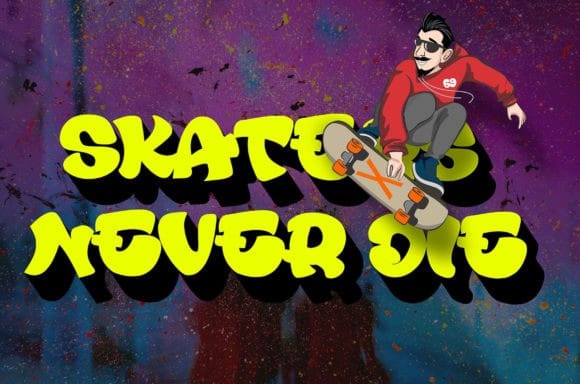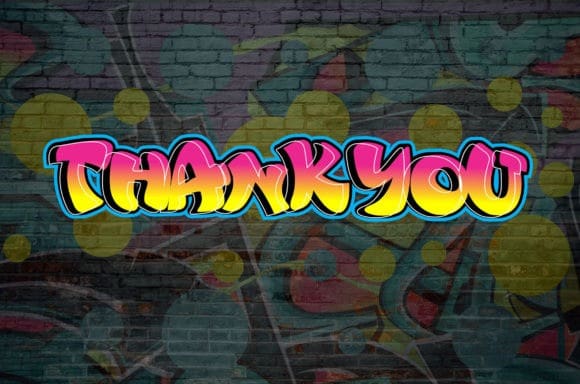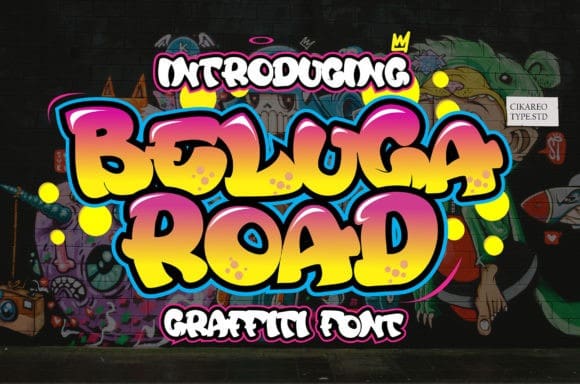
Beluga Road Font
Beluga Road Font is a cool, graffiti styled and neat display font. This font is suitable for designs such as t-shirts, sportswear, logos, advertisements, clothing, and more.